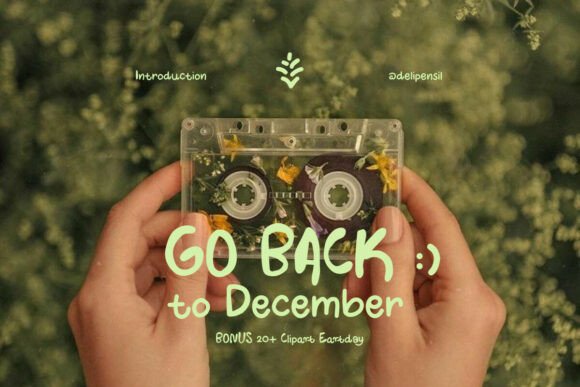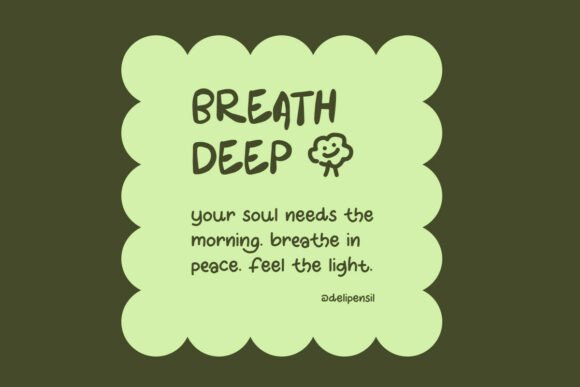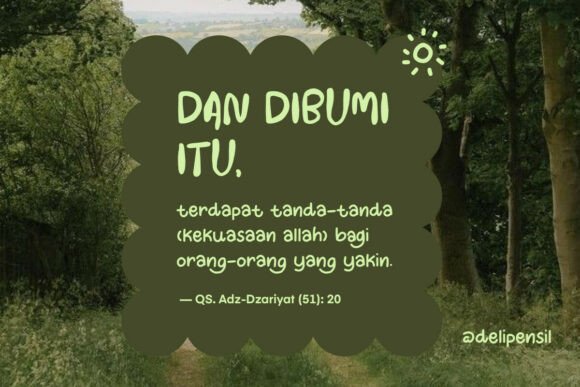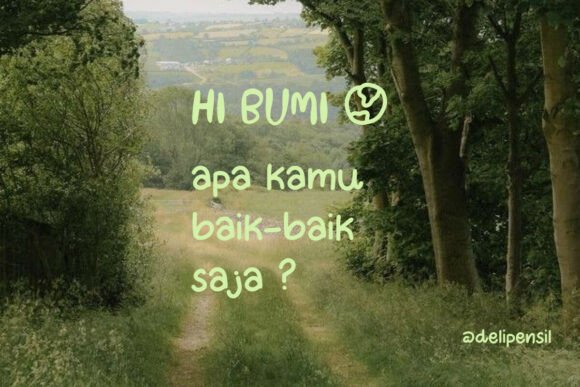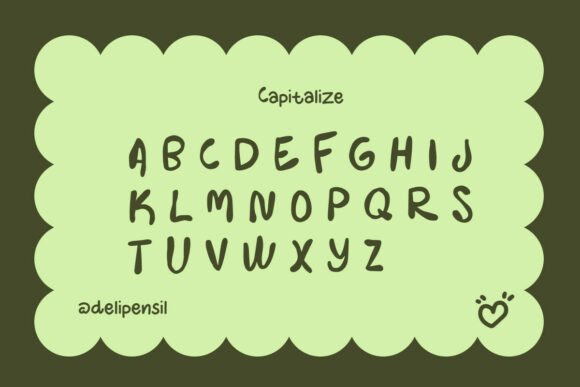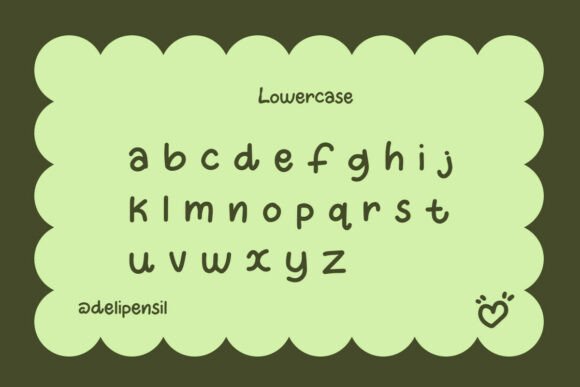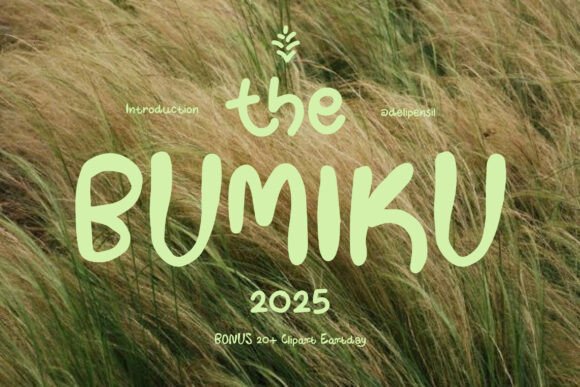
Bumiku Font: A Handwritten Nature-Inspired Typeface for Your Creative Projects
✨ Bismillah, Introducing Bumiku – a beautiful, soft, and organic handwritten font that embodies the serenity of nature. This stunning typeface is designed to bring a touch of warmth, simplicity, and mindfulness to your creative projects. Whether you’re a designer, crafter, or eco-friendly brand, Bumiku is the perfect choice for anyone looking to add a personal and natural touch to their work.
The Inspiration Behind Bumiku
Bumiku is inspired by the calmness of nature, evoking feelings of serenity and peacefulness. The font’s creator aimed to capture the essence of a note written under a tree or a message carried by the wind. With Bumiku, you can add a touch of organic charm to your designs, making them feel more approachable and personal.
Key Features of Bumiku Font
• Soft and Organic: Bumiku’s handwritten strokes are smooth and natural, giving your designs a warm and inviting feel.
• Nature-Inspired: The font’s design is influenced by the natural world, making it perfect for eco-friendly brands, Earth Day campaigns, and outdoor-related projects.
• Handwritten: Bumiku’s unique, handwritten style adds a personal touch to your designs, making them stand out from the crowd.
• Versatile: This font is suitable for a wide range of creative projects, including logos, product packaging, journal covers, social media posts, and more.
Perfect for Eco-Friendly Brands and Designers
Bumiku is an excellent choice for eco-friendly brands, sustainable products, and environmentally conscious designers. The font’s natural and organic feel aligns perfectly with the values of eco-friendly brands, helping you communicate your message in a warm and approachable way.
Bonus: 20+ Clipart Earthday
To help you get started with your creative projects, Bumiku comes with a bonus of 20+ clipart Earthday illustrations. These cute and colorful graphics will add a fun touch to your designs, making them perfect for Earth Day campaigns, social media posts, and other eco-friendly projects.
Use Cases for Bumiku Font
• Logo Design: Create a unique and memorable logo for your eco-friendly brand or product.
• Product Packaging: Add a touch of natural charm to your product packaging and make it stand out on store shelves.
• Journal Covers: Design beautiful and inspiring journal covers that reflect your love for nature.
• Social Media Posts: Create engaging and eco-friendly social media posts that resonate with your audience.
• Earth Day Campaigns: Use Bumiku to create impactful and meaningful designs for Earth Day campaigns and events.
Bumiku is a stunning handwritten font that brings a touch of nature-inspired charm to your creative projects. With its soft and organic strokes, versatility, and eco-friendly vibe, this font is perfect for designers, crafters, and eco-friendly brands. Download Bumiku today and start creating beautiful, natural, and inspiring designs that resonate with your audience. 🌿